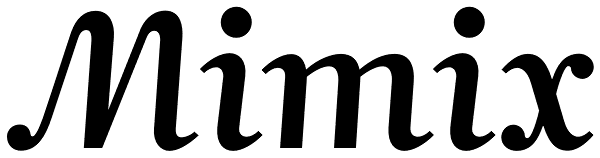
Mimix
Mimix is designed especially for comic fans and all typographers who like to play. It’s ideal to express spontaneity and the joy of life. Where Mimix is used, there’s life. The characters are lined in a row, a face looks out from the page. Big ears...